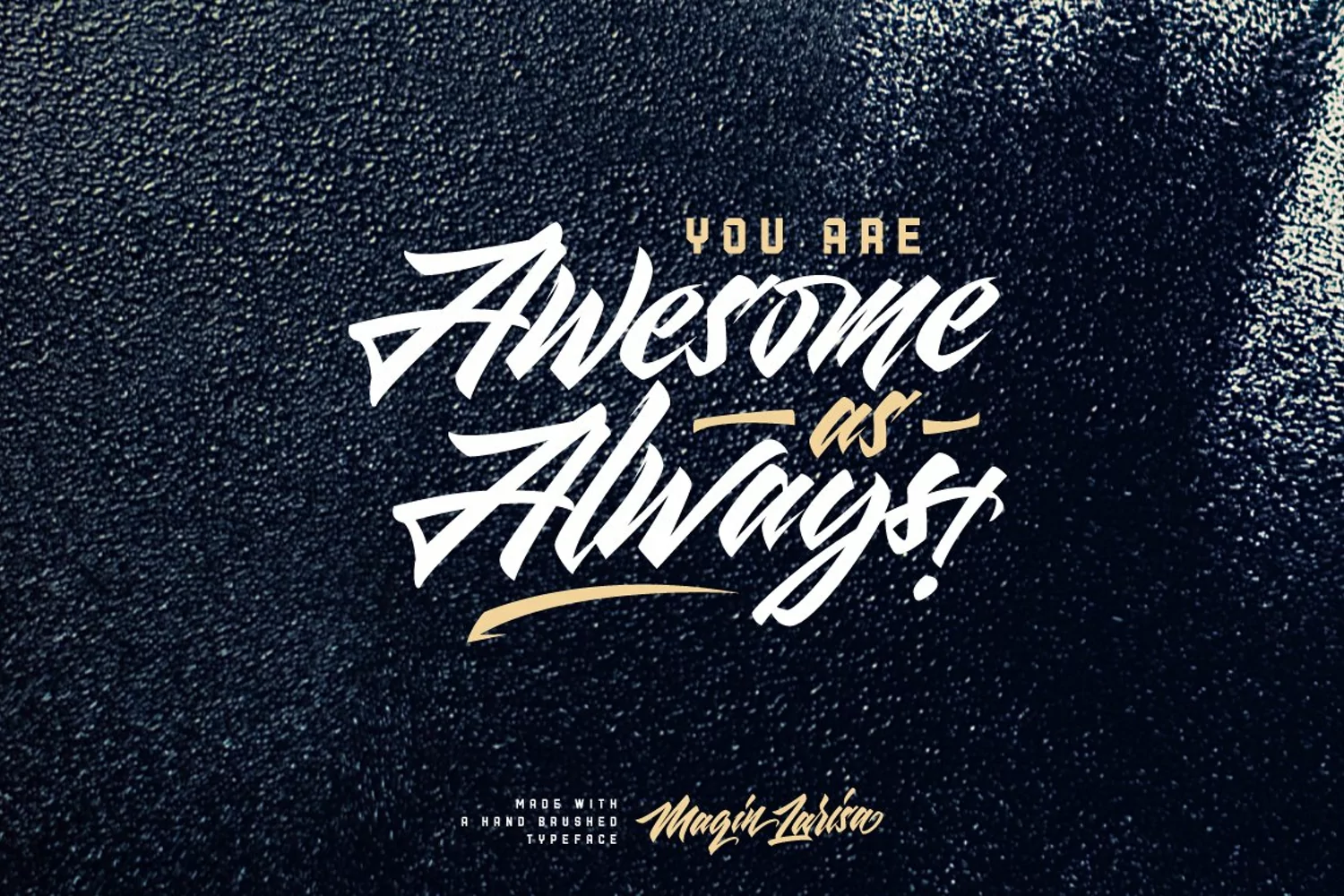
Maqin Larisa an excellent typeface for modern hand lettering logo designs. Maqin Larisa typeface is also suitable for any design needs, modern invitation design, branding, blog design, modern advertising design, invitation, Art Quote, Home decor, Book/Cover Title, Invitation, special events, birthday, custom mug, pillow, t-shirts, any brush lettering needs and more. Maqin Larisa typeface supports the following languages : Albanian, Basque, Breton, Chamorro, Dutch, English, Finnish, Frisian, Galician, German, Italian, Malagasy, Portuguese, Spanish, Swedish. Thank you for your purchase! and hope you're having fun with Maqin Larisa ! Happy creating! Yipia Nesia Studio Malang - Indonesia